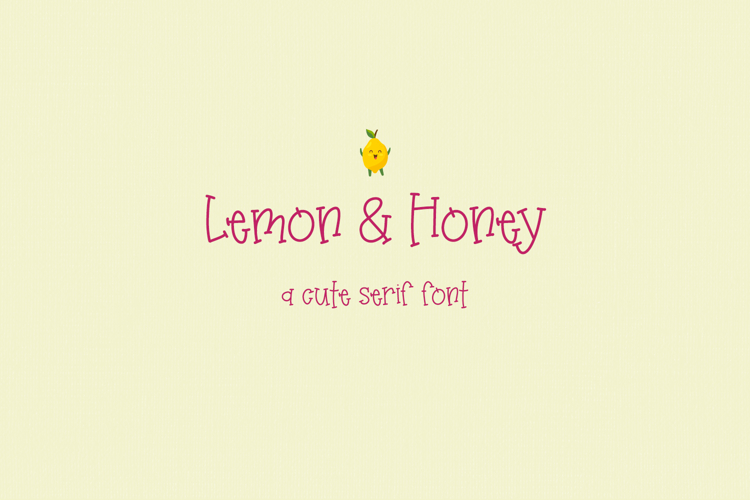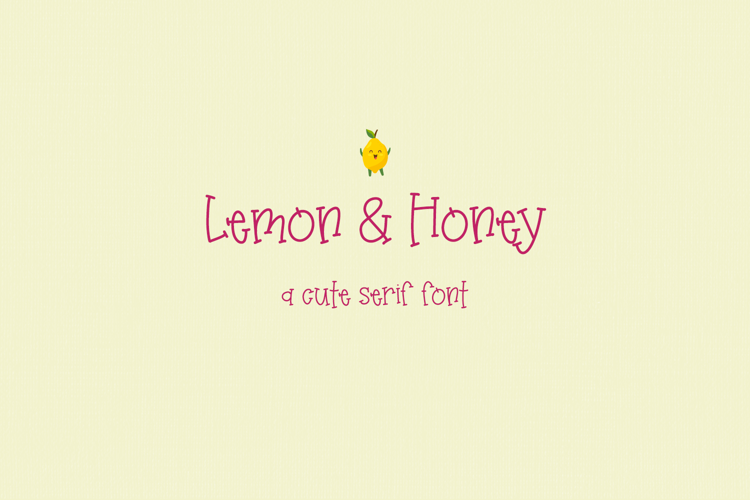
Lemon and Honey Serif Font
Say hello to Lemon & Honey Serif, an adorable hand lettered serif font. Lemon & Honey is super cute & whimsical. This serif font is perfect for crafting projects with your Cricut or Silhouette machine. Design shirts, keychains, paper products, and more using this font.